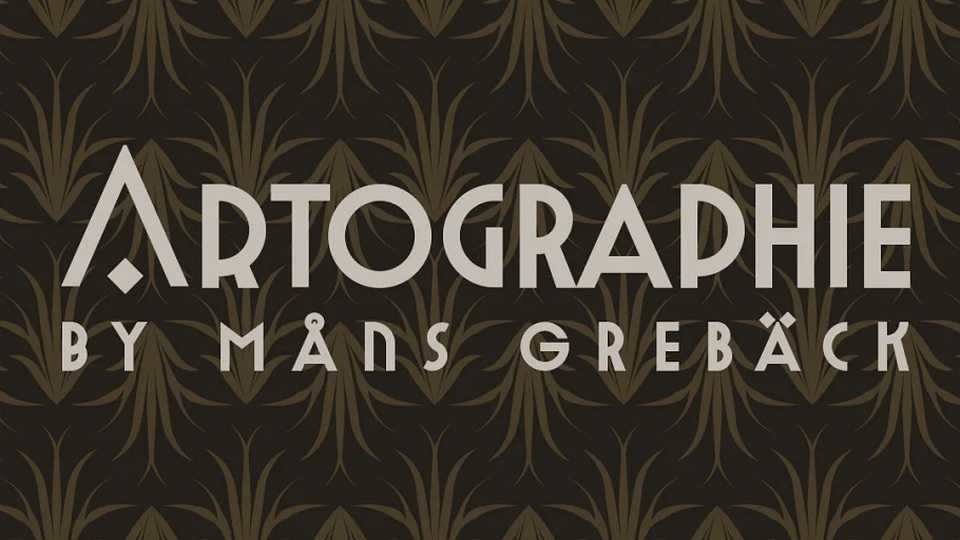
Download Artographie typeface, an Art Deco sans serif font family. Artographie gives any project a modernist appearance, as a reinvention of the hundred-year-old style of design, adapted and adjusted to fit in present-time purposes and technology.
Designer: Måns Grebäck